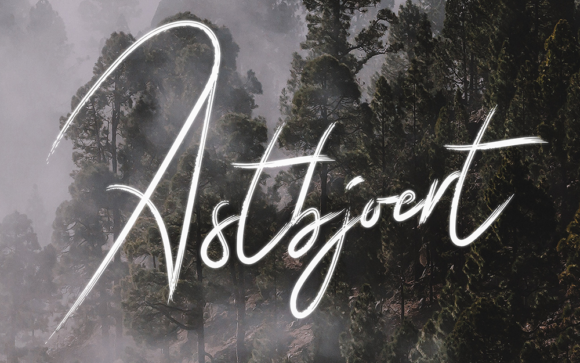
The Astbjoert Font: A Rough Brush Font with a Striking Look
Have you ever been in the middle of a design project, and suddenly, you just can’t seem to find the right font? I recall a particularly frustrating experience while working on a client’s social media campaign. The project required a font that was bold, yet elegant; modern, yet rustic. That’s when I stumbled upon the Astbjoert font. This rough brush font has been a game-changer for me, and I’m excited to share my experience with you.
An Honest Review of Astbjoert
• ✨ Unique and striking appearance that adds a personal touch to any design
• 💡 Highly versatile and can be used for both digital and print projects
• 🎨 Great for designers, crafters, and creative hobbyists looking for a distinctive font
While Astbjoert is an excellent font, there are a few things to keep in mind:
• ⚠️ Some letters may appear a bit rough or uneven, which can be a deliberate design choice but might not be suitable for all projects
• 🤔 Limited availability of stylistic alternates, which might limit its use in certain designs
The Designer Inspiration Behind Astbjoert
The Astbjoert font was created with the intention of bringing a unique, hand-crafted feel to digital designs. The designer aimed to create a font that was both elegant and rough, perfect for adding a personal touch to any project. While the designer’s background is unknown, it’s clear that Astbjoert was created with the creative community in mind.
Q: What type of projects is Astbjoert best suited for?
A: Astbjoert is perfect for a variety of projects, including social media posts, Instagram stories, labeling, clothing, books, album covers, posters, and more.
Q: Is Astbjoert a difficult font to read?
A: While Astbjoert has a unique, rough texture, it’s still a highly legible font. However, it may not be suitable for very small font sizes or body text.